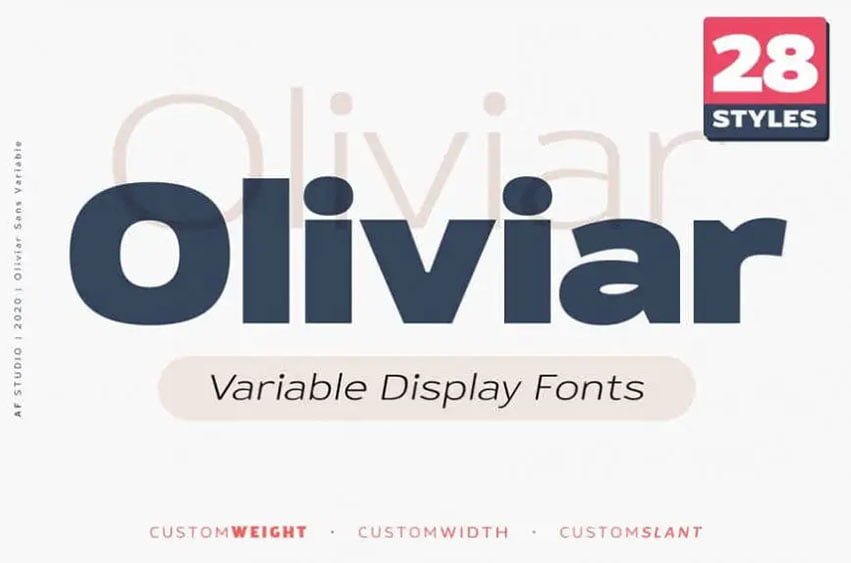
Oliviar Sans Variable Font is a modern sans serif with Grotesque touch. Inspired by Geometrical fonts and also Humanist Sans serif. Created with 8 Masters that export to the traditional OTF to 28 Styles! On the Applications that support variable fonts such as Adobe Illustrator & Photoshop, you can get more than only 28, you can customize the Weight, Width and Slant.